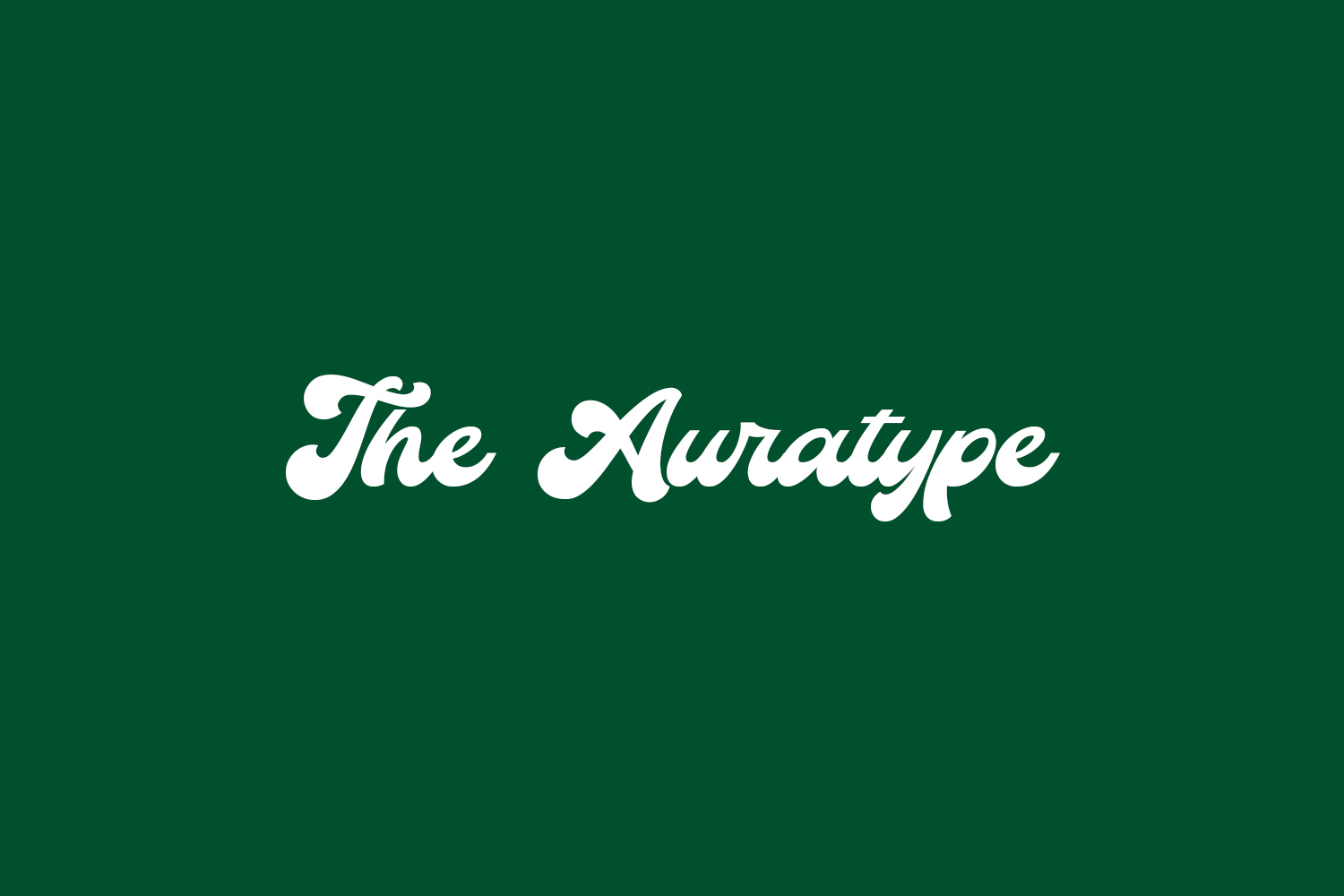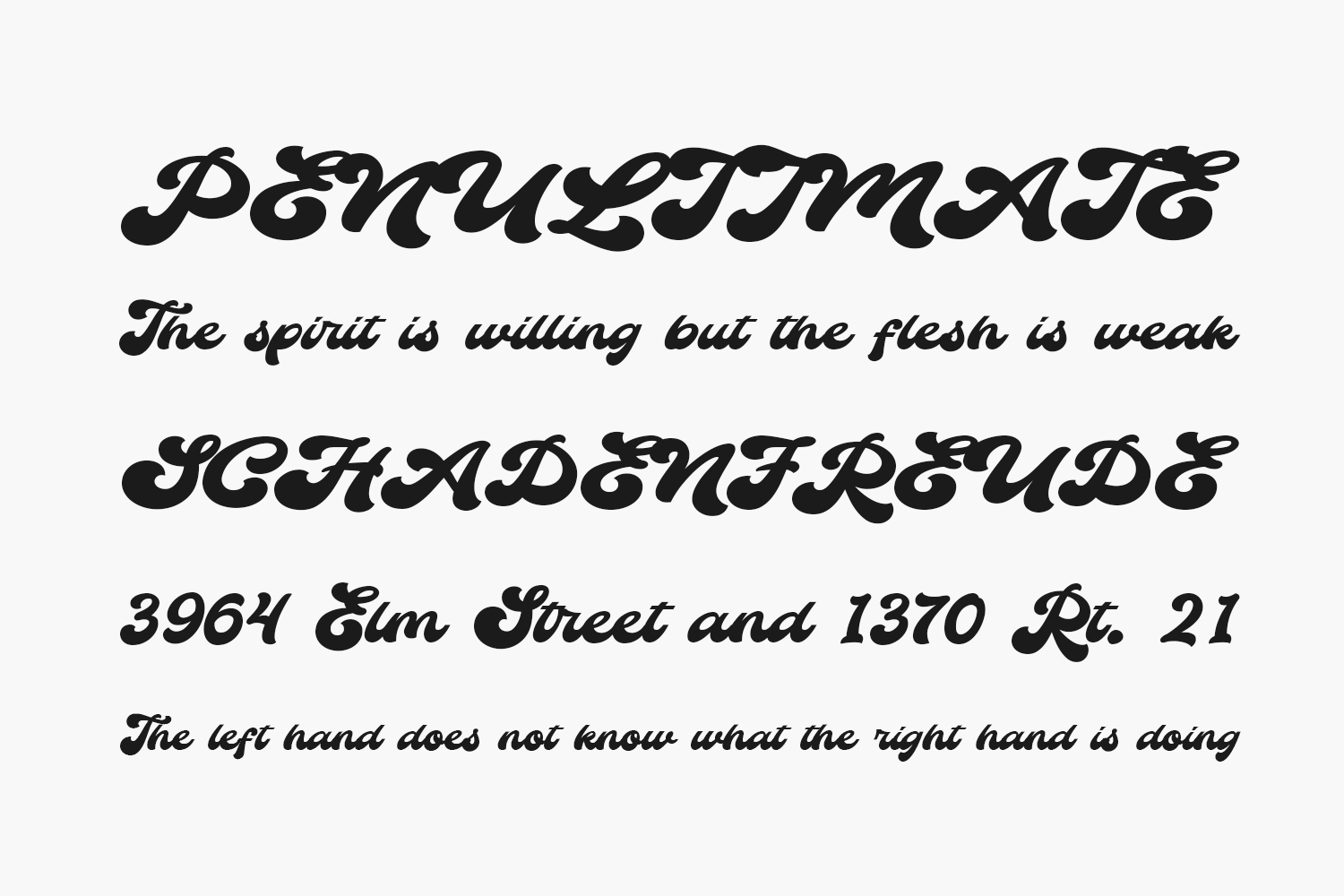
The Auratype Free Font Family is a retro and classic typeface, inspired by the 60s – 80s designs. This font is suitable for logos, stickers, tees, banners, posters, signs, and various other creations.